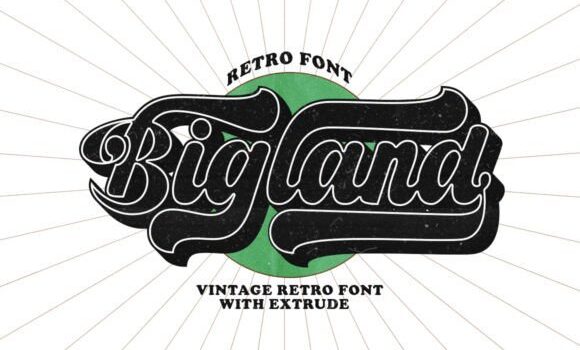
bigland
Bigland Retro Font – Free Download Introduction to Bigland Retro Font Bigland Retro is an urban retro font with the style like a logotype lettering. 📸 Preview Gallery 6 images 📌 Product Name Bigland Retro Font 👤 Author LetterFreshStudio 📂